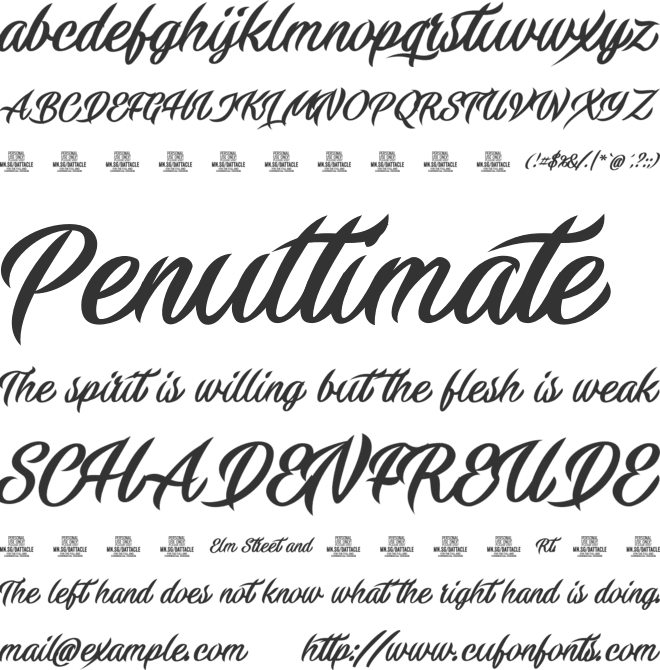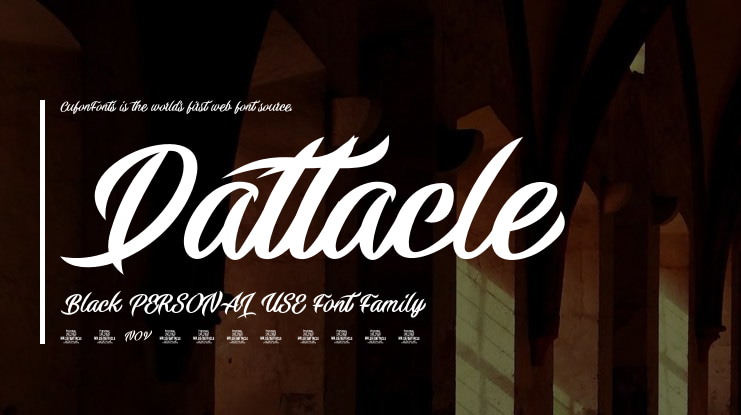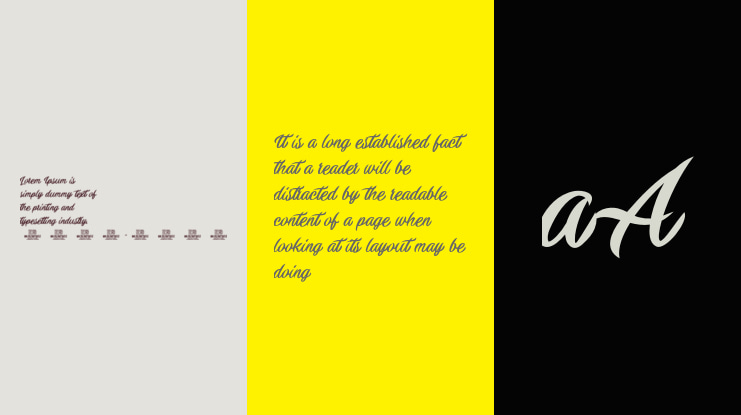
Dattacle Black PERSONAL USE Font Family
NOTE: This font is for PERSONAL USE ONLY!To purchase a commercial license, visit:https://www.mansgreback.com/product/dattacleDattacle is a fast-flowing cursive typeface that fuses classic tattoo script with modern brush calligraphy.´It moves with confident elegance, its pointed strokes shaped like swift blades, dancing between tradition and flair. For questions, please visit https://mansgreback.com/faq